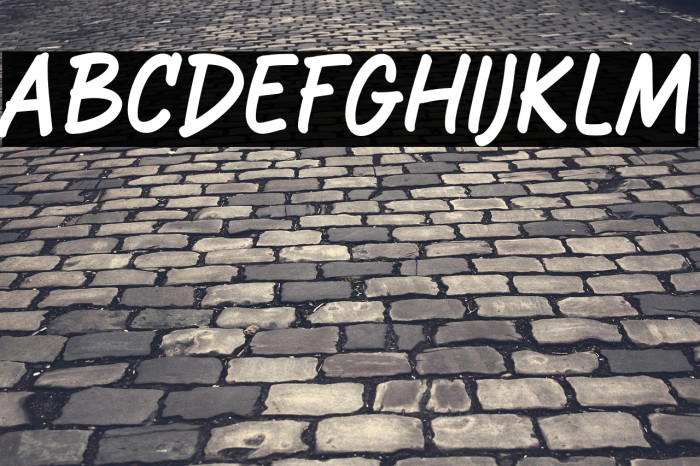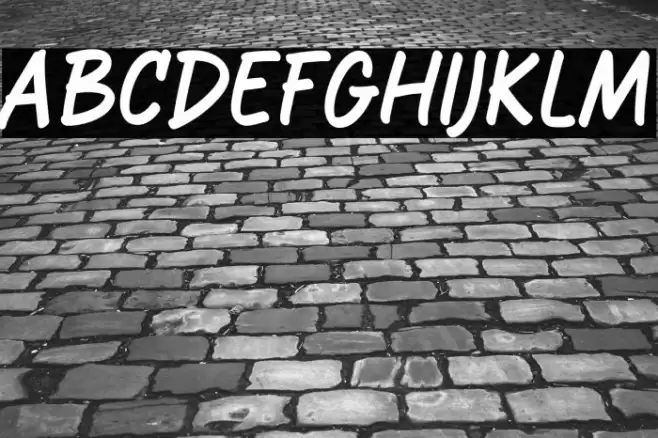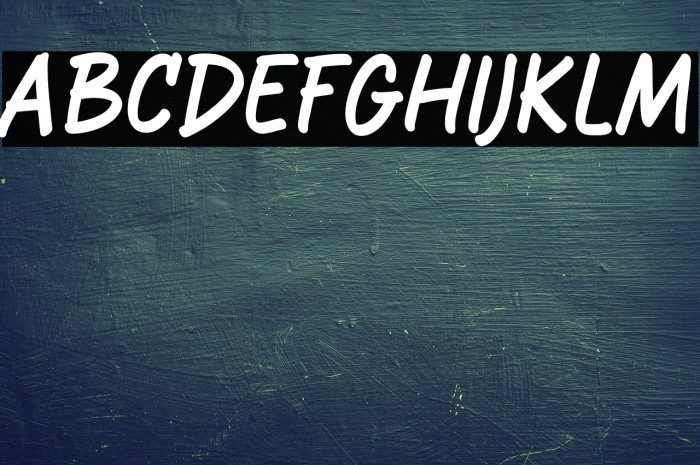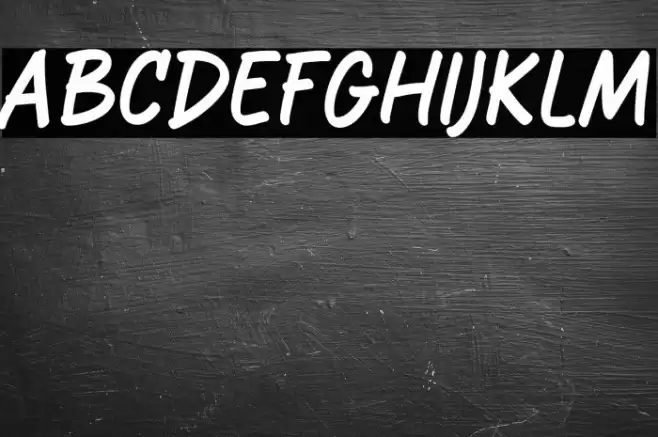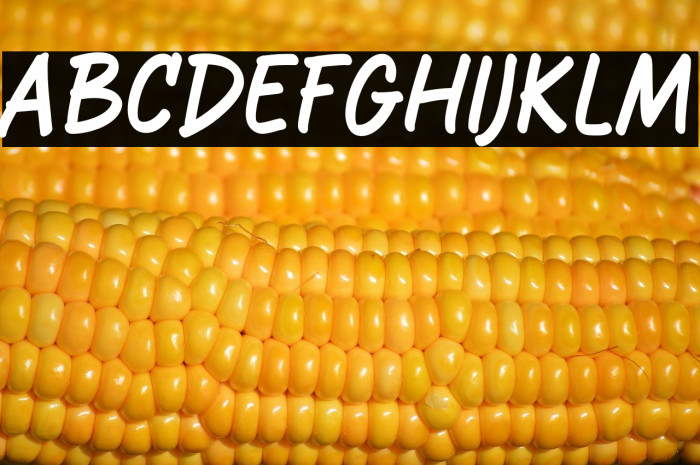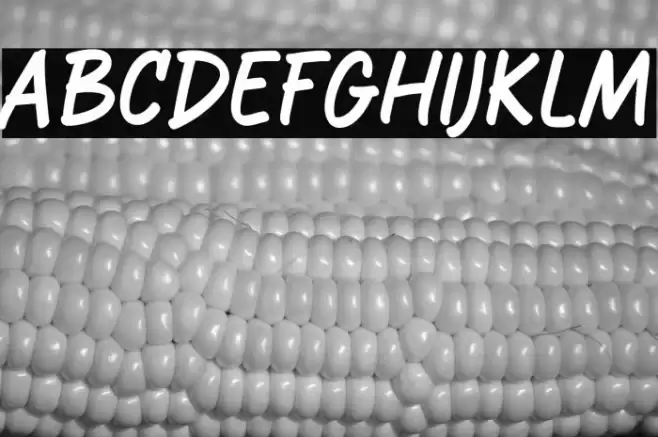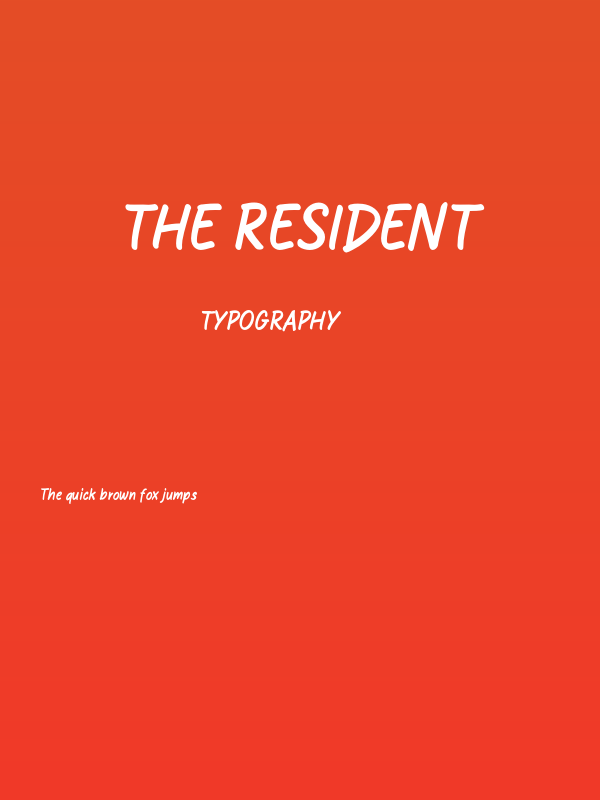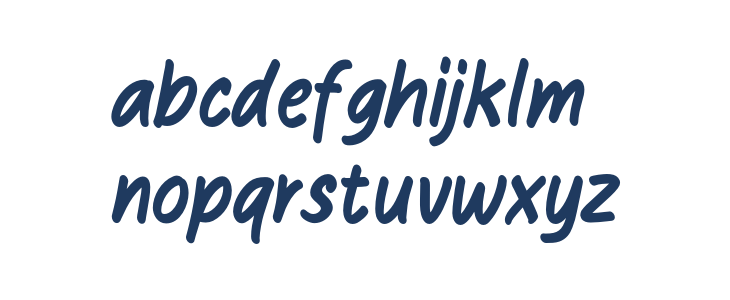
The Resident Font
The Resident Description
This font features a bold and dynamic handwritten style, characterized by its smooth, flowing curves and slightly slanted letters. The uppercase and lowercase letters maintain a consistent style, with rounded edges and a casual, friendly appearance. The numbers and special characters complement the alphabet with the same energetic and informal feel. Its bold strokes and uniform thickness give it a strong presence, making it suitable for attention-grabbing designs.
Overall StyleCasual
Use CaseHeadlines, Logos, Informal Invitations
Proposed ProjectsIdeal for greeting cards, posters, branding projects, and social media graphics where a personal touch is desired.